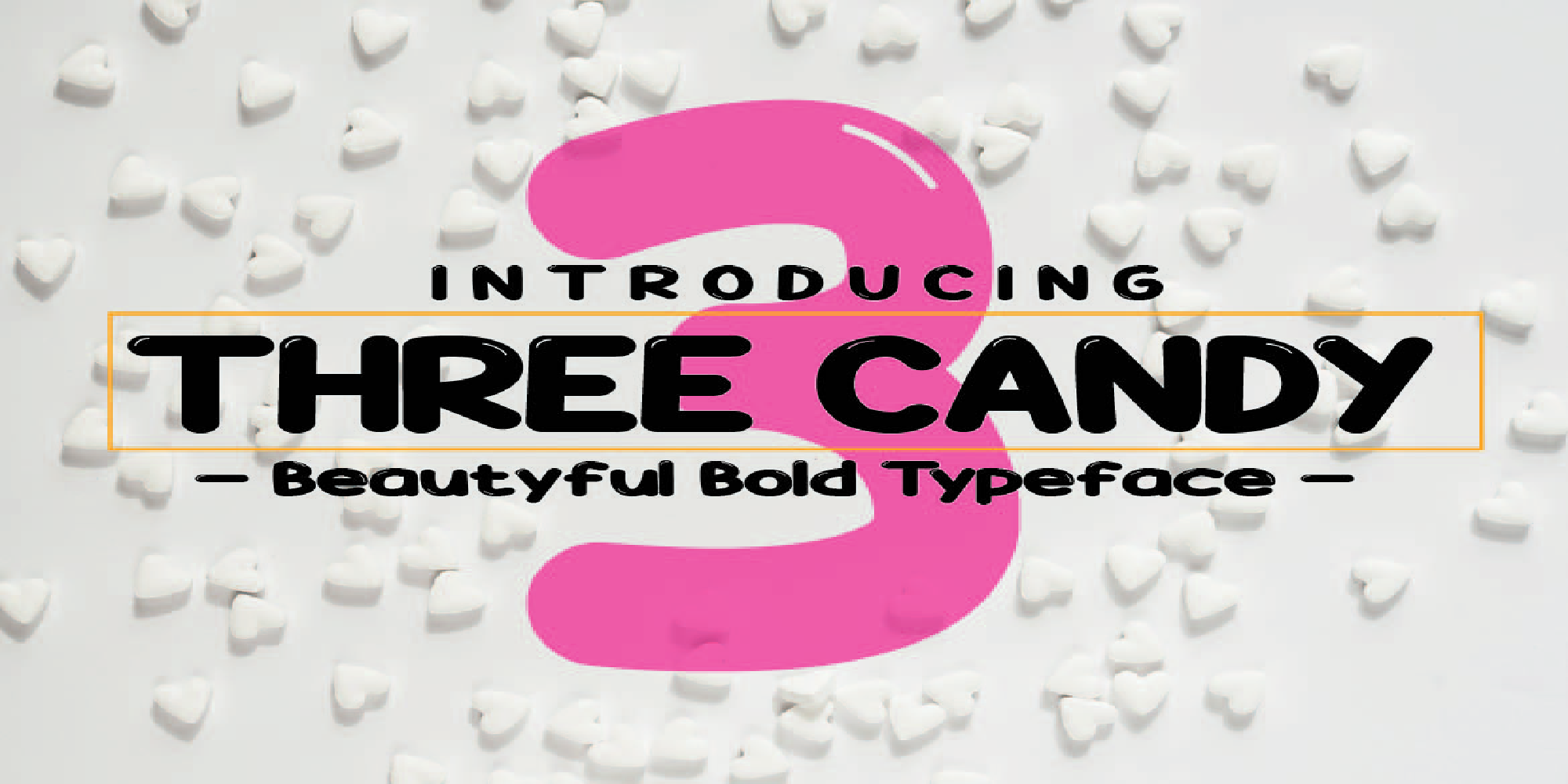
Three Candy Font is perfect for confectionery shop branding, children's birthday party invitations, ice cream parlor signage, toy store marketing, candy packaging design, sweet treat advertising, bakery promotional materials, and playful kids' product branding.
Three Candy Font is exciting because it captures the pure joy and irresistible sweetness of childhood treats through its delightfully playful character design that evokes the colorful world of confectionery and the magical excitement of sugar-filled adventures. Its whimsical styling and cheerful appeal make it the perfect choice for brands that want to communicate fun, sweetness, and the innocent happiness of childhood memories.
Three Candy Font family includes multiple sweet variations: Three Candy Regular, Three Candy Bold, Three Candy Light, Three Candy Outline, Three Candy Shadow, and Three Candy Sprinkles, along with confectionery decorative elements and sweet symbols, providing designers with comprehensive tools for creating authentic candy and children-themed brand experiences.
When exploring playful typography solutions, Three Candy Font Free Download stands out as the ultimate choice for designers working on confectionery and children's projects that require genuine sweetness and playful appeal. This delightful typeface embodies the essence of candy shop magic while offering the versatility needed for modern children's product marketing and confectionery branding. The font's sweet character and playful resonance create immediate connections with audiences who appreciate childhood joy and confectionery delights.
Creative professionals consistently turn to Three Candy Font for projects requiring authentic sweetness and powerful playful appeal. Its carefully crafted letterforms feature confectionery influences that work exceptionally well in both large-scale candy store displays and intimate party invitation designs. The font's ability to convey fun and sweetness while maintaining strong brand recognition makes it invaluable for comprehensive identity systems in the confectionery, children's entertainment, and sweet treat product sectors.
Whether you're developing candy store identities, creating children's party materials, or designing sweet product packaging, Three Candy Font delivers the authentic confectionery character and playful appeal that resonates with audiences who celebrate childhood sweetness and candy shop magic. Its joyful design and whimsical charm ensure your projects capture the innocent delight of confectionery experiences while maintaining contemporary professional standards that attract modern families and sweet treat enthusiasts.